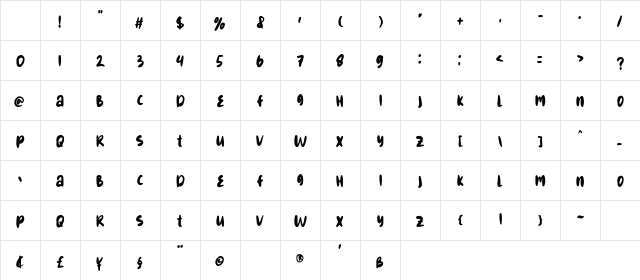
Complete Dreary Broken Regular glyph index. Displaying only characters natively supported by Dreary Broken Regular font.
Dreary Broken is a composed and adaptable typeface that performs quietly and consistently across a wide range of design contexts.